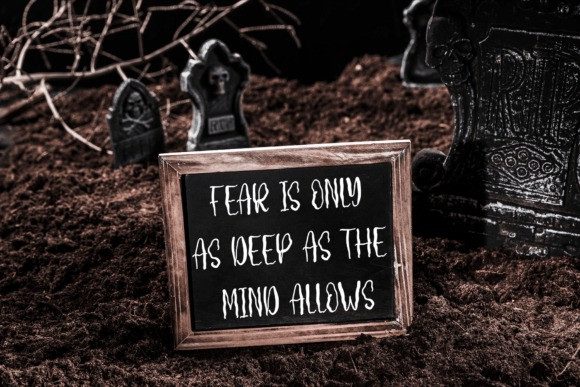
Screaming House Font
Screaming House Font is a fun and spooky handwritten display font. Cute and fun, this font is ideal for writing wedding invitations, cards, or any other design that might need a fun touch!